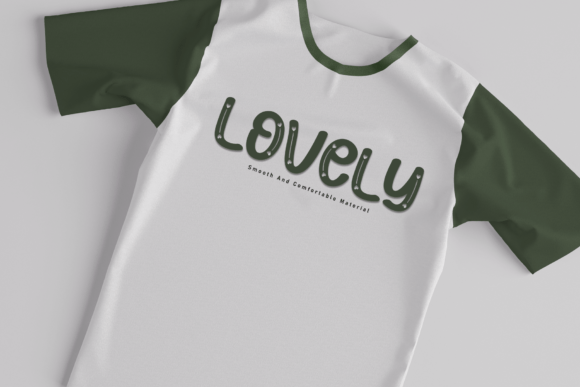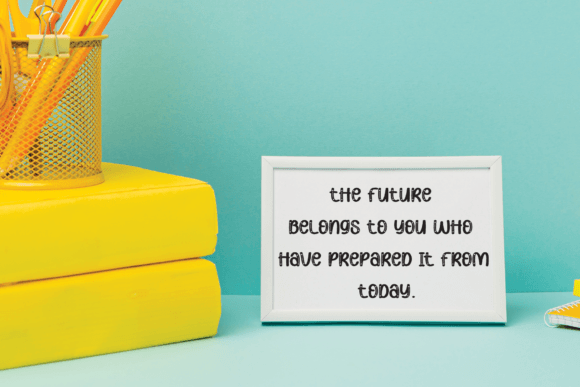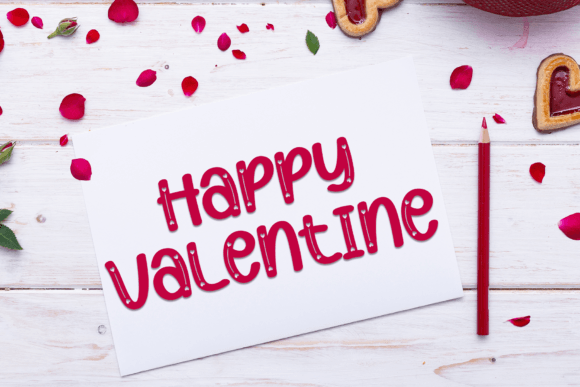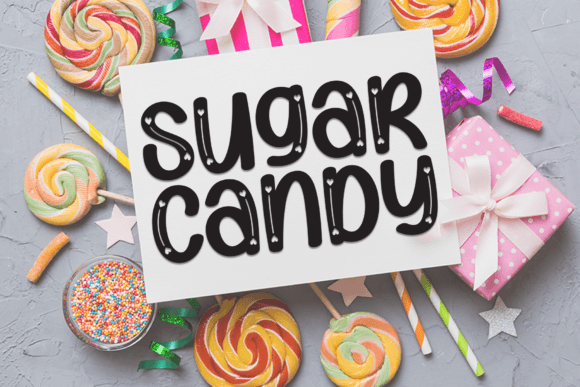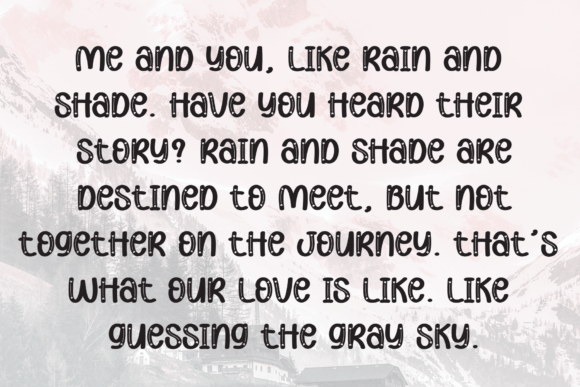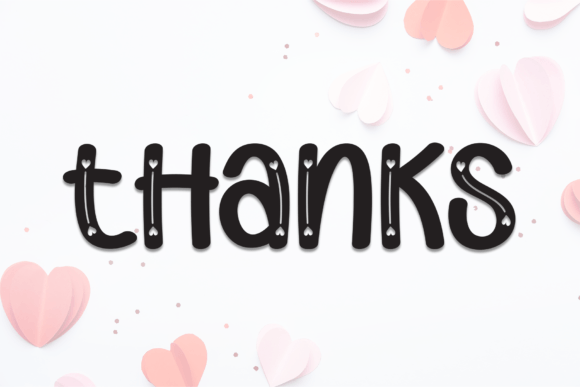
Falling in Love Font: The Perfect Handwritten Font for Your Design Needs
Falling in Love Font is a beautiful, sweet, and friendly handwritten font that has captured the hearts of designers and crafters alike. Its natural and unique style makes it incredibly versatile, suitable for a wide range of designs, from romantic and whimsical to playful and adventurous. In this article, we’ll explore the features and benefits of Falling in Love Font, and how it can elevate your design projects to the next level.
A Font that Speaks to the Heart
Falling in Love Font is more than just a font – it’s a way to express your emotions and bring your designs to life. Its handwritten style is warm, inviting, and relatable, making it perfect for designs that require a personal touch. Whether you’re creating romantic invitations, wedding stationery, or social media graphics, Falling in Love Font is sure to make your designs stand out.
Unique and Versatile
One of the standout features of Falling in Love Font is its unique and versatile style. The font’s natural, hand-crafted look makes it suitable for a wide range of designs, from:
- Romantic and whimsical designs, such as wedding invitations, Valentine’s Day cards, and anniversary gifts
- Playful and adventurous designs, such as children’s party invitations, stickers, and coloring books
- Personal and creative projects, such as journaling, scrapbooking, and mixed media art
The only limit to using Falling in Love Font is your imagination! With its flexibility and charm, you can create unique and eye-catching designs that reflect your personality and style.
Key Features of Falling in Love Font
Here are some key features that make Falling in Love Font a must-have for designers and crafters:
- Handwritten style: A warm, natural, and inviting font that adds a personal touch to your designs
- Unique and versatile: Suitable for a wide range of designs, from romantic and whimsical to playful and adventurous
- Easily readable: Clear and legible, making it perfect for body text and headings
- Multilingual support: Supports multiple languages, making it a great choice for international designs
Tips for Using Falling in Love Font
Here are some tips for using Falling in Love Font in your designs:
- Pair with other fonts: Combine Falling in Love Font with other fonts to create interesting and dynamic typography
- Experiment with colors: Try out different colors and textures to add depth and interest to your designs
- Use for headings and body text: Falling in Love Font is clear and legible, making it perfect for both headings and body text
- Get creative with graphics: Use Falling in Love Font to add a personal touch to your graphics, such as illustrations, watercolor designs, and digital art
Falling in Love Font is a beautiful and versatile handwritten font that is perfect for designers and crafters looking to add a personal touch to their designs. With its unique and natural style, it’s suitable for a wide range of designs, from romantic and whimsical to playful and adventurous. Whether you’re creating digital or print designs, Falling in Love Font is sure to make your projects stand out. So why not give it a try and see what amazing designs you can create?